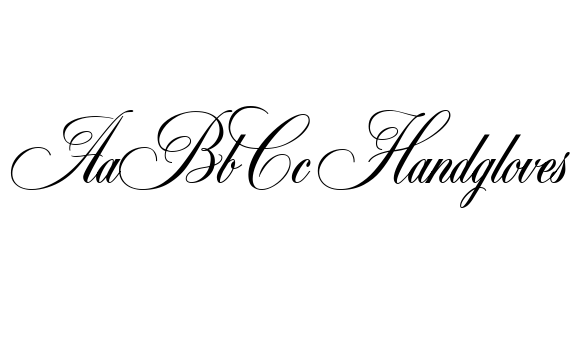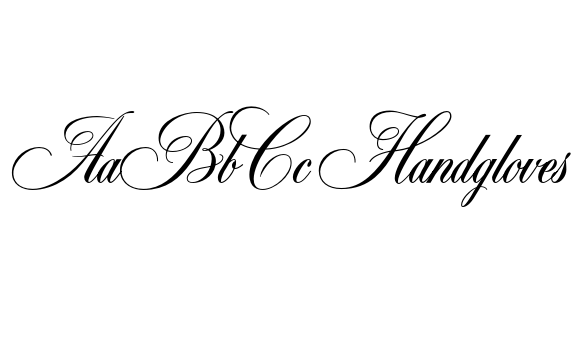
BP BlackWhite
BP BlackWhite Font Family was designed by Dmitrii Mikitenko, Sabina Aliyarova and published by BlessedPrint. BP BlackWhite contains 2 styles and family package options.
About BP BlackWhite Font Family